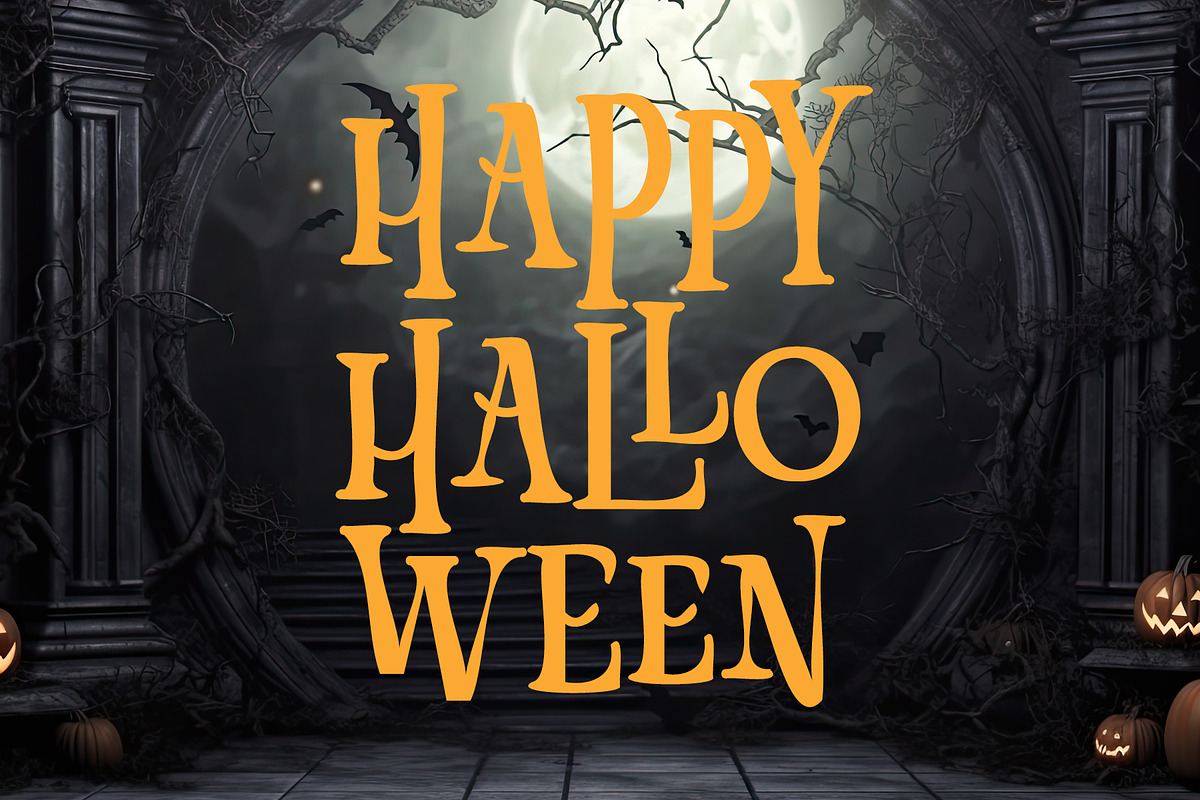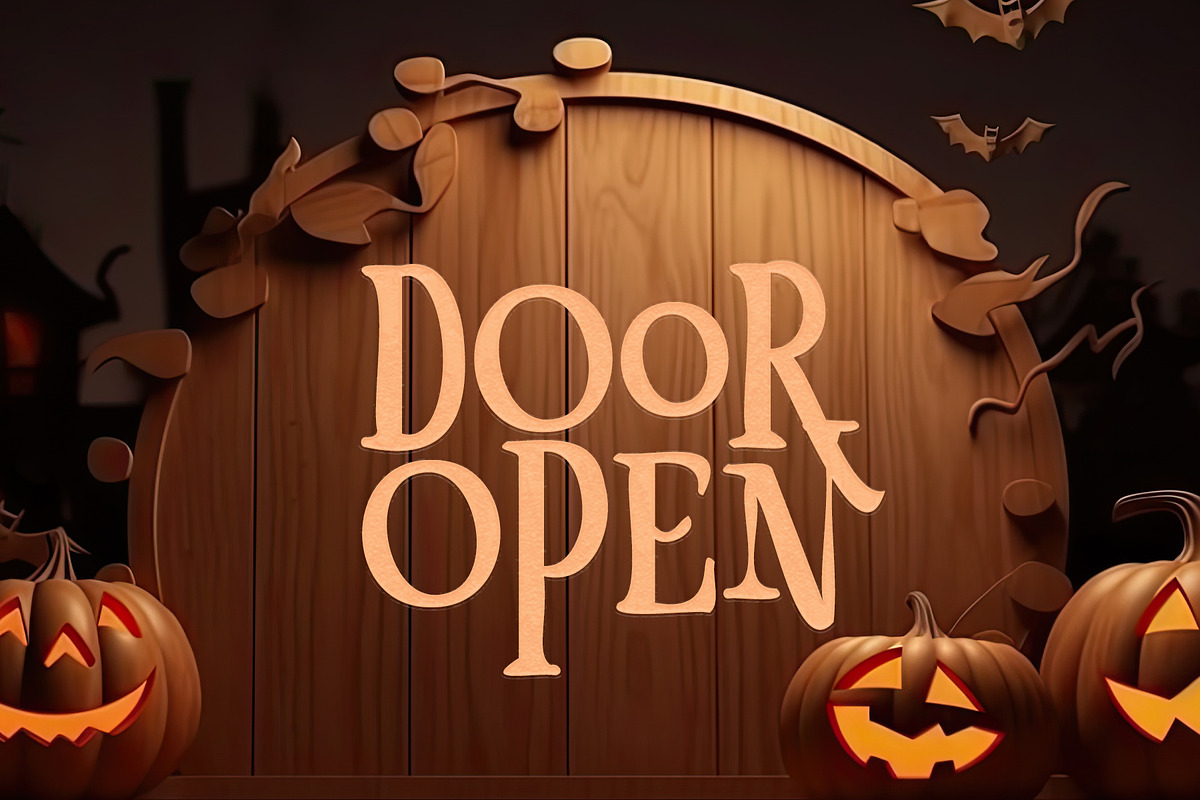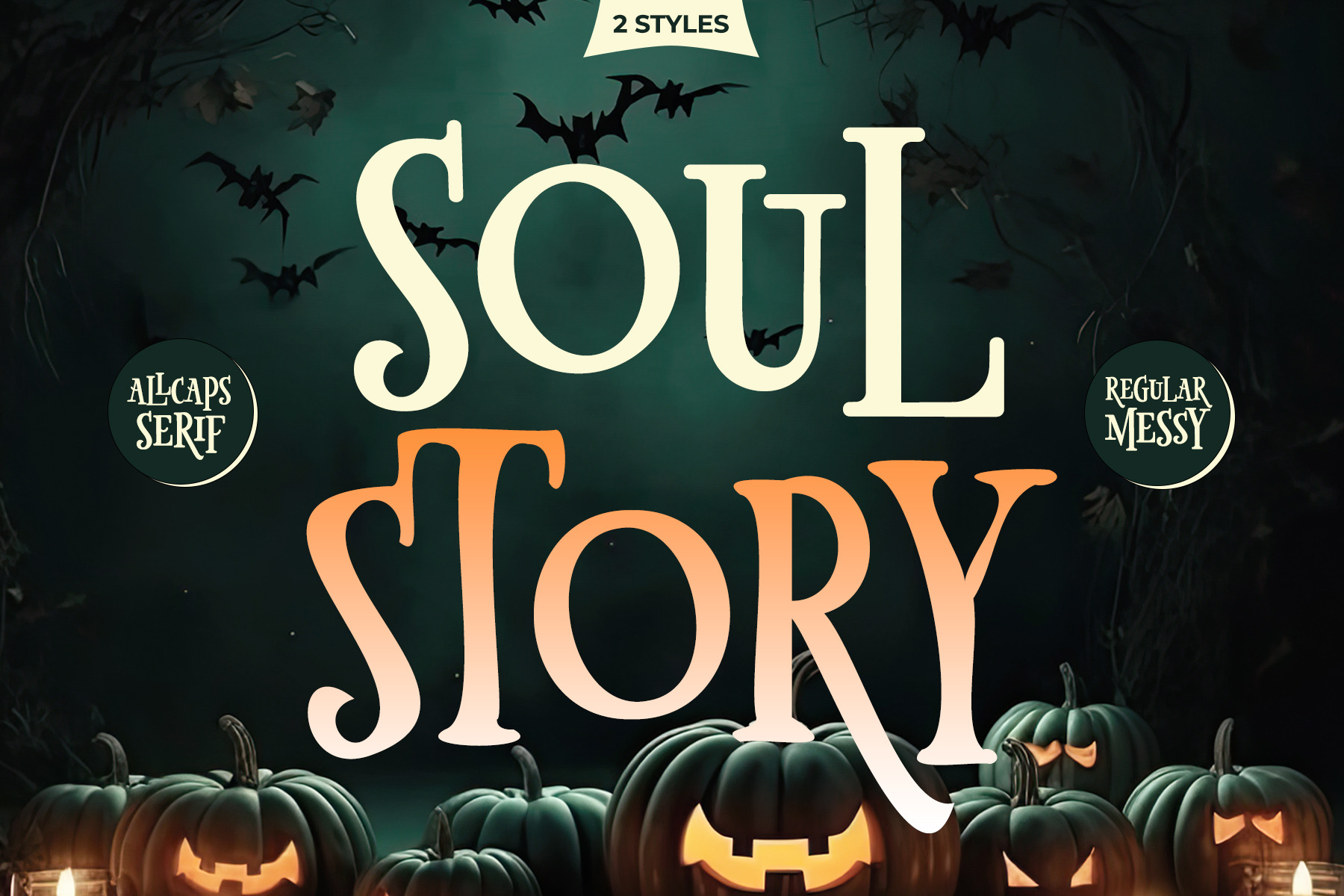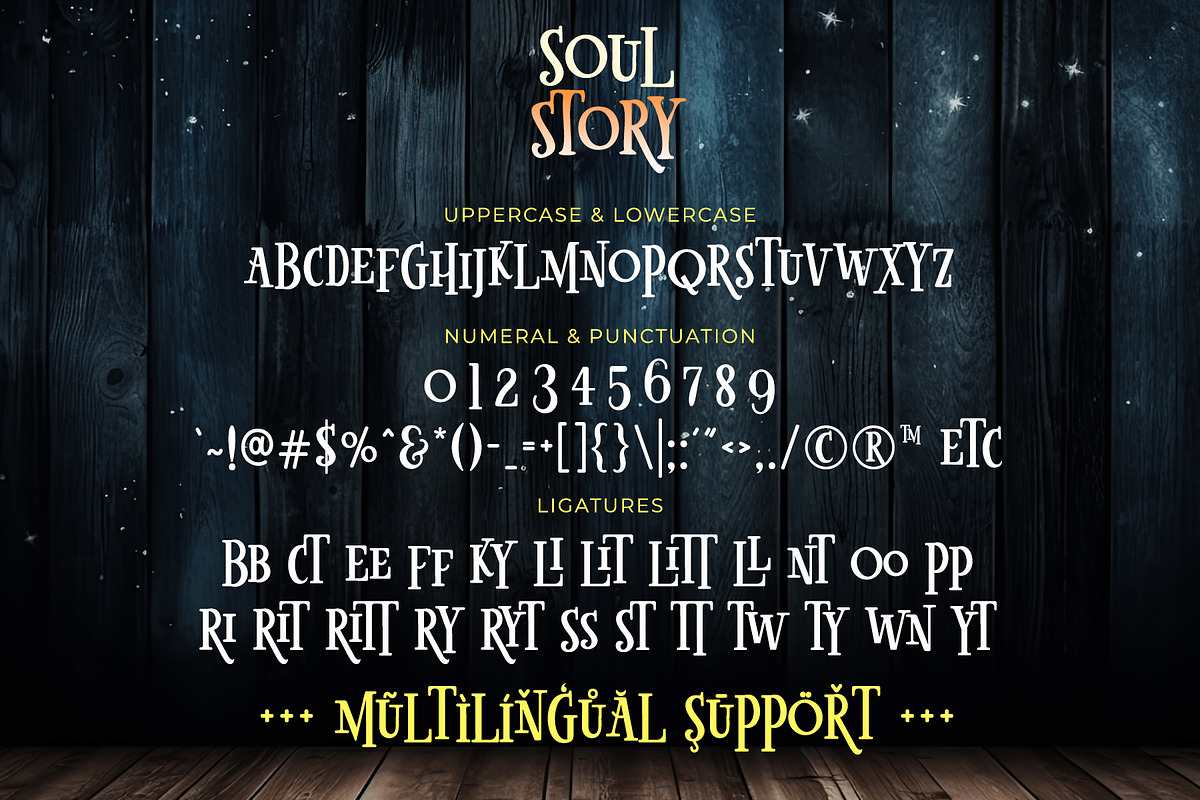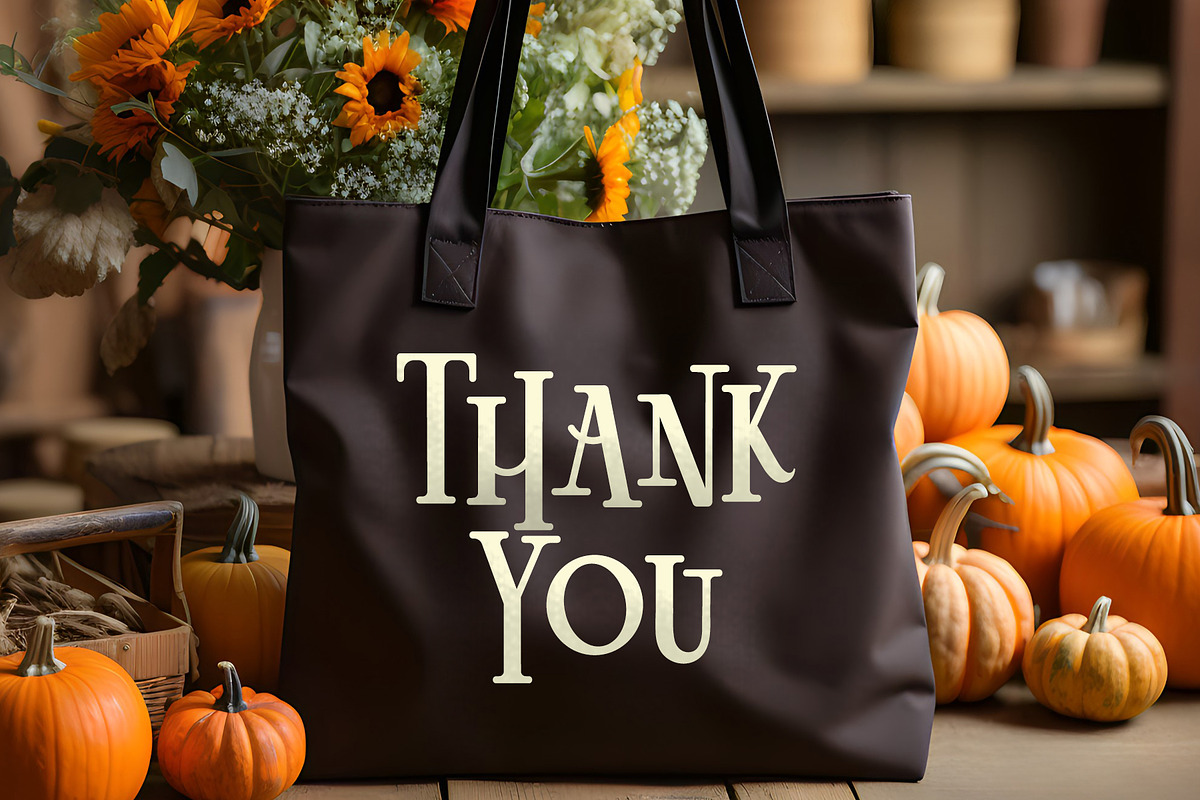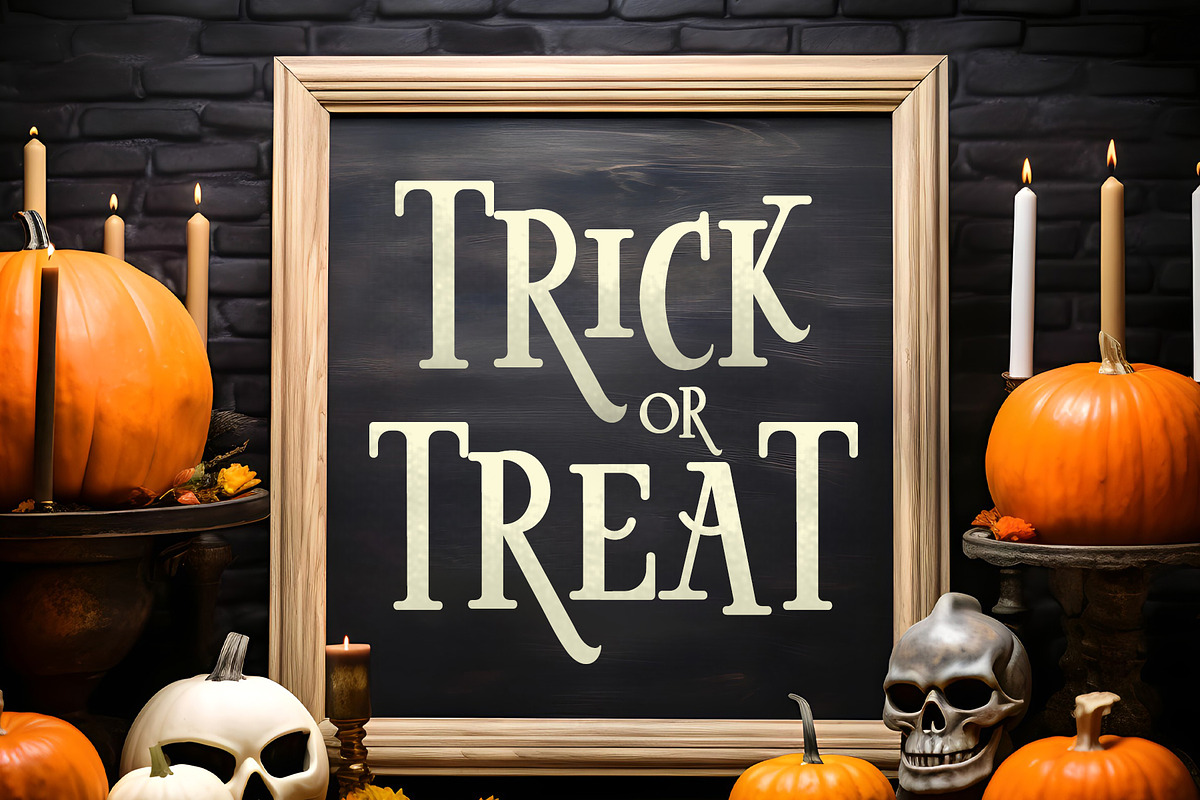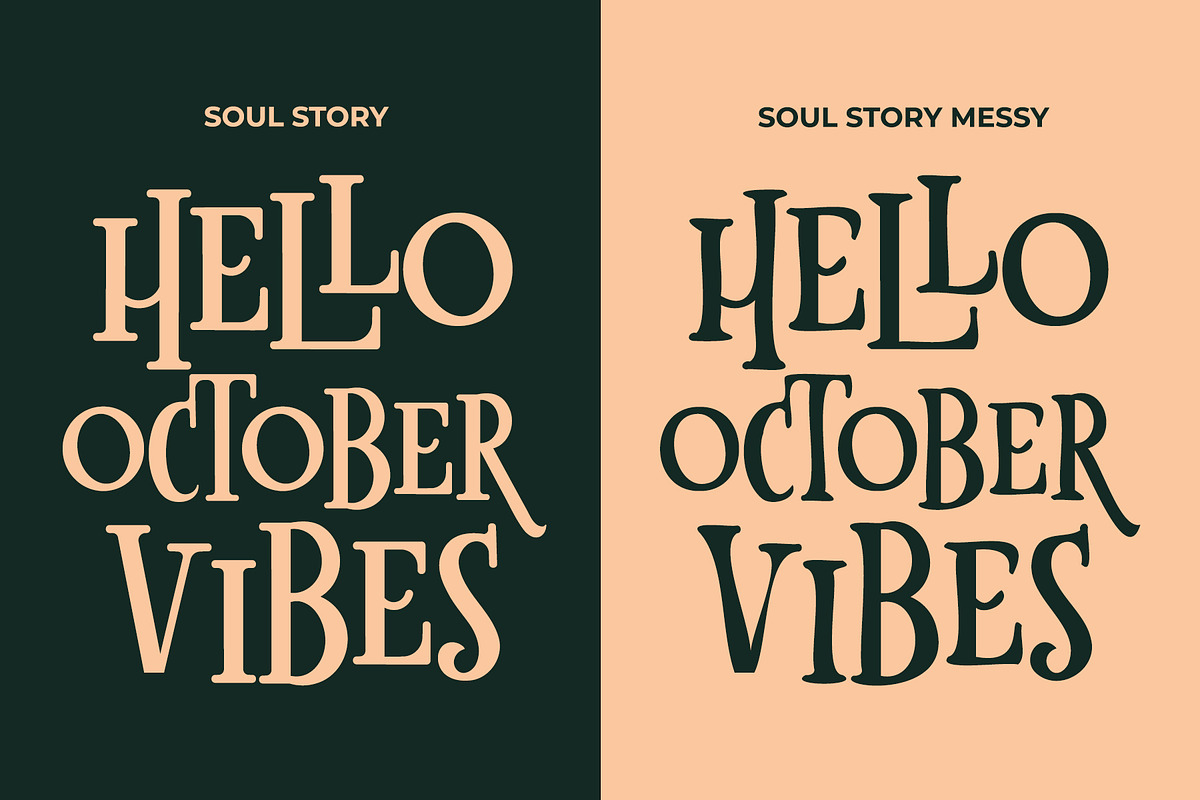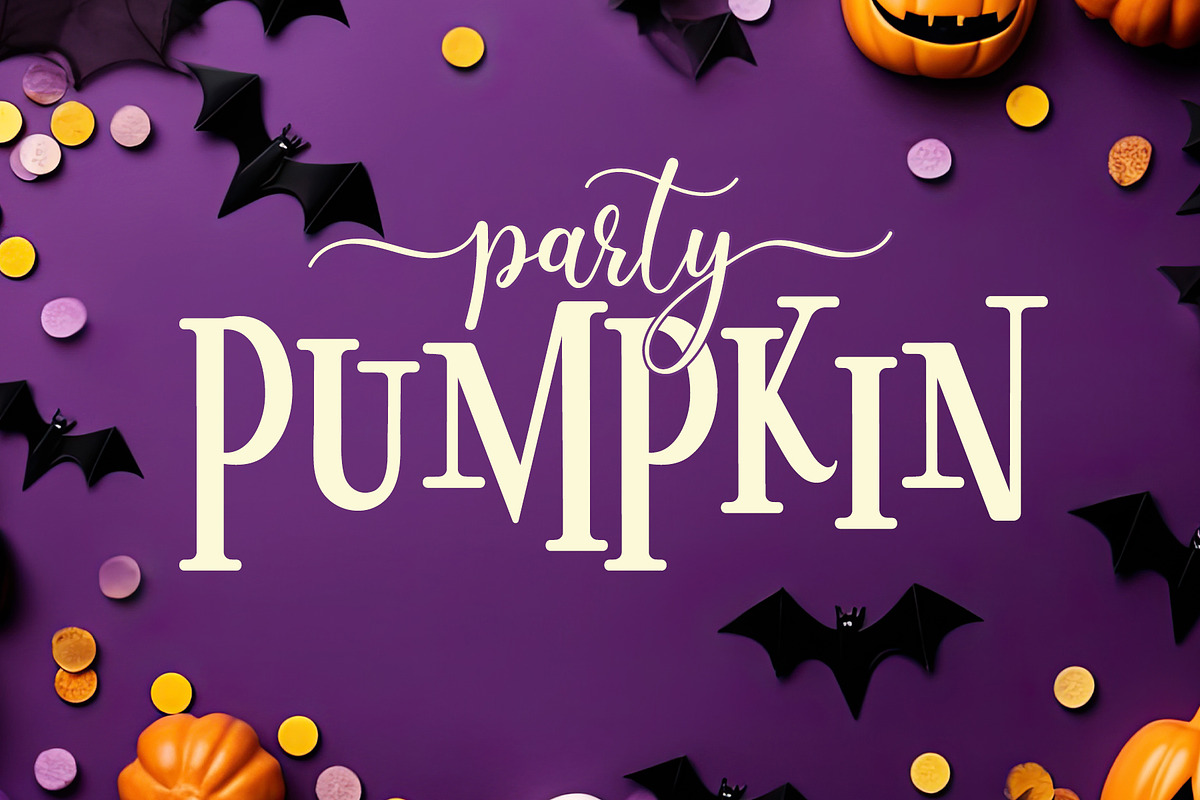
Soul Story - All Caps Serif Font
Soul Story is all caps bouncy serif. It is cute, fancy, and playful.
This fonts has 2 styles, solid and messy. The solid one can be used for the cute design The messy one can be used for spooky and scary design.
- All Caps (with some ligatures)
- Most Multilingual Accent